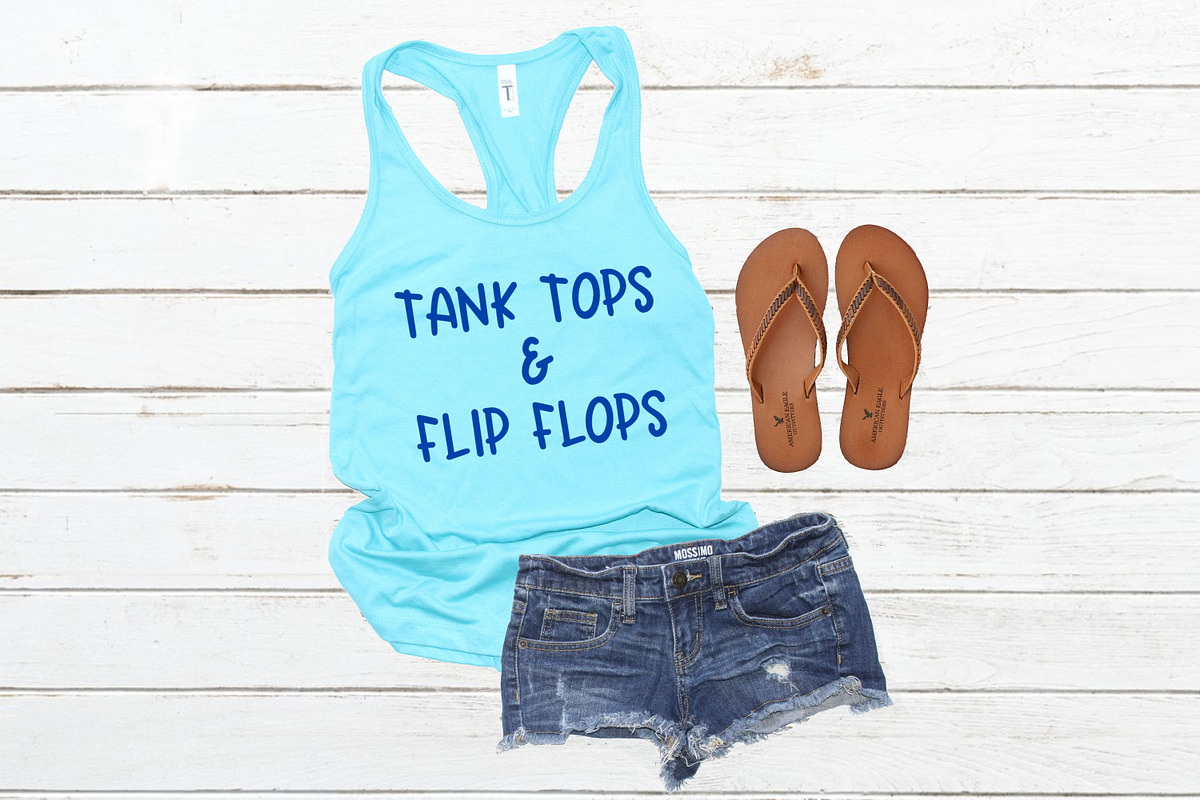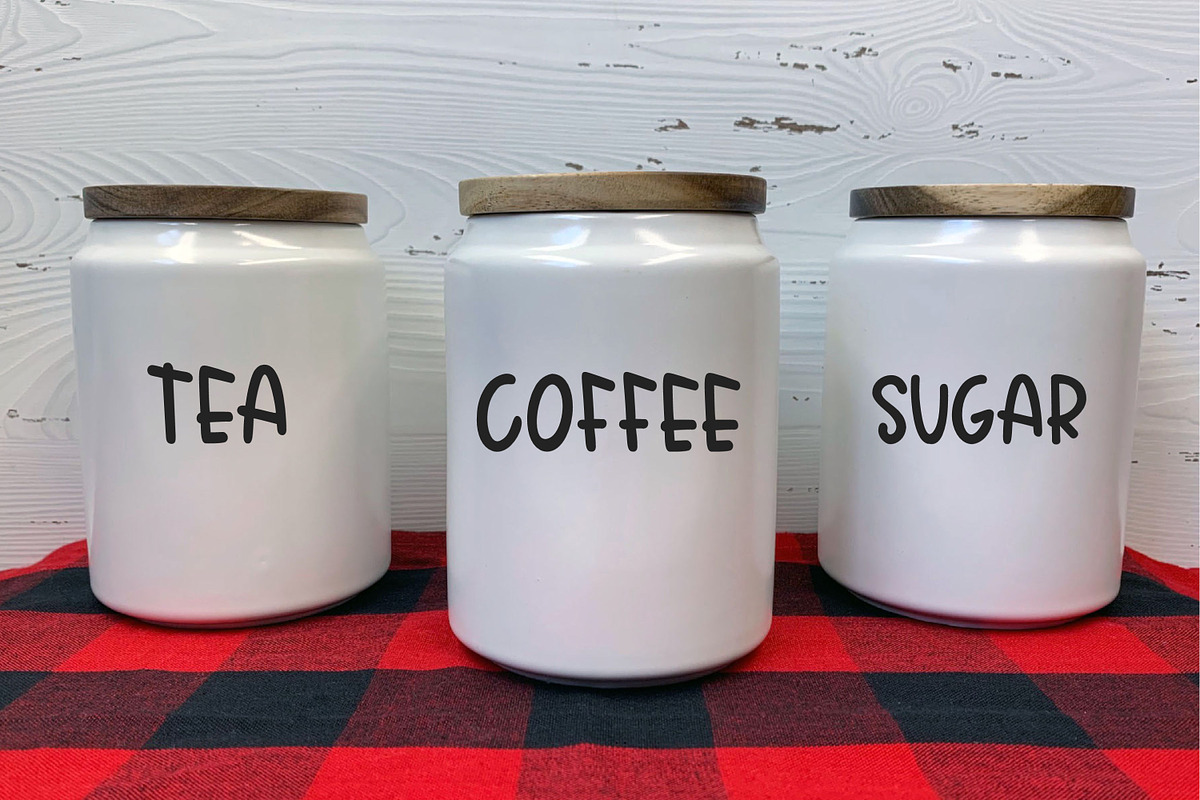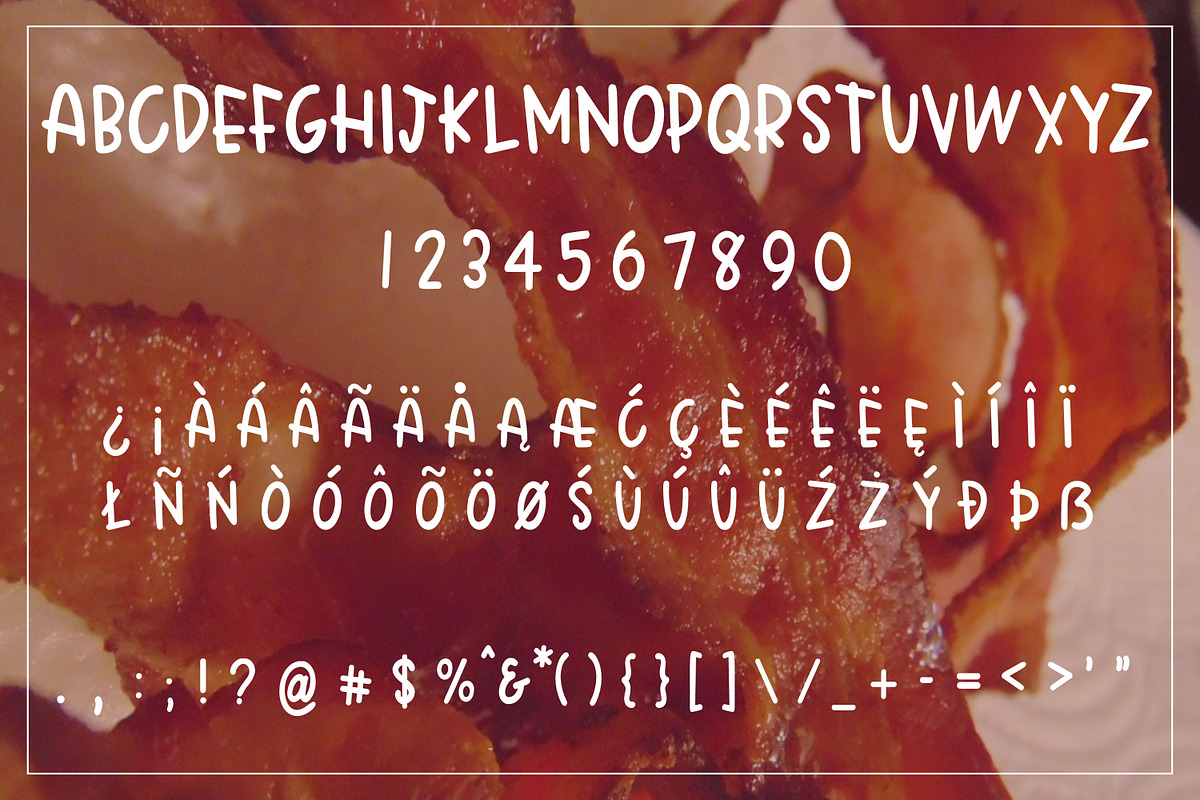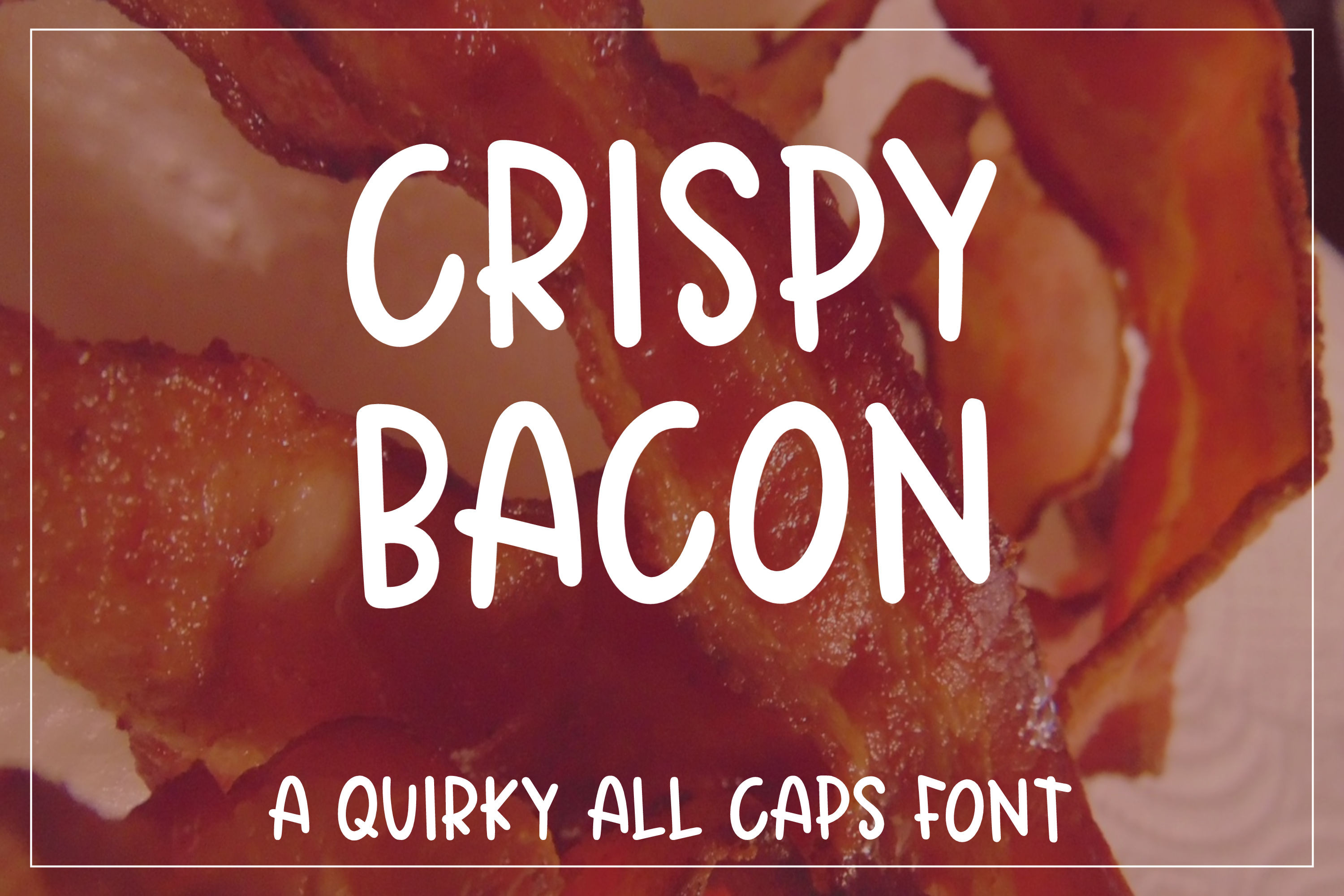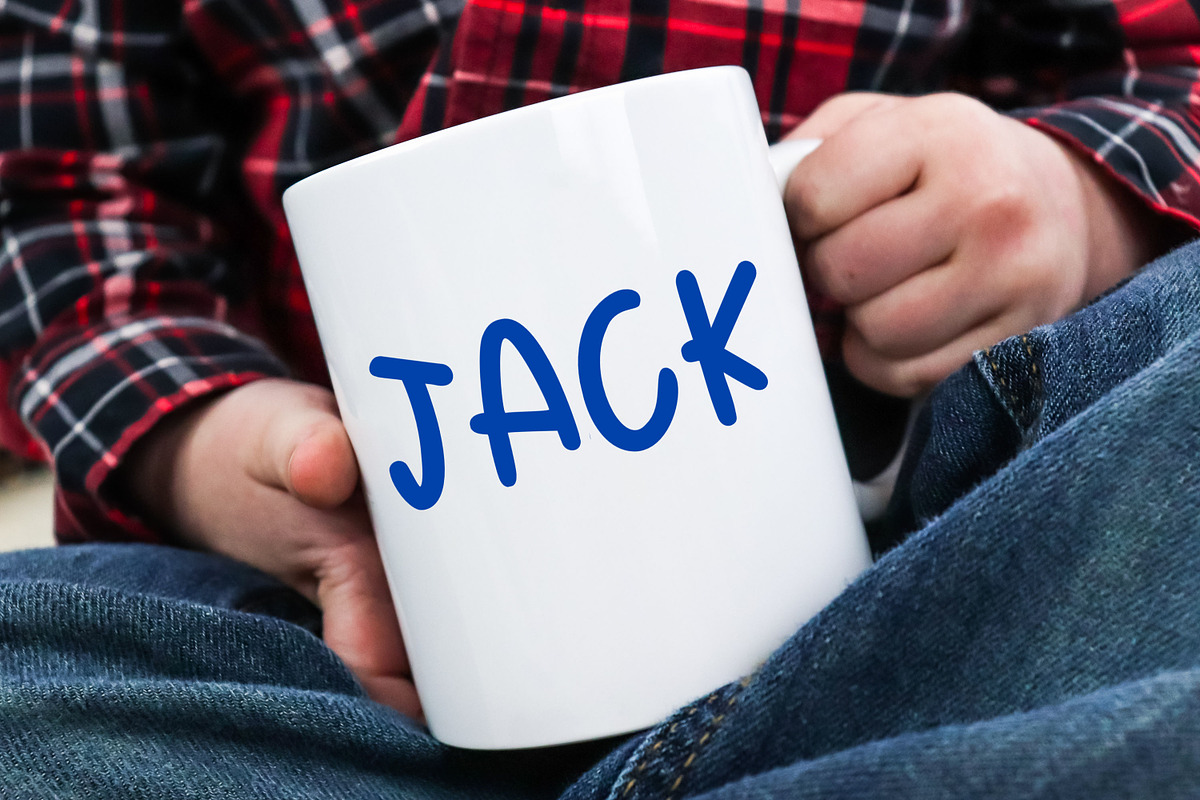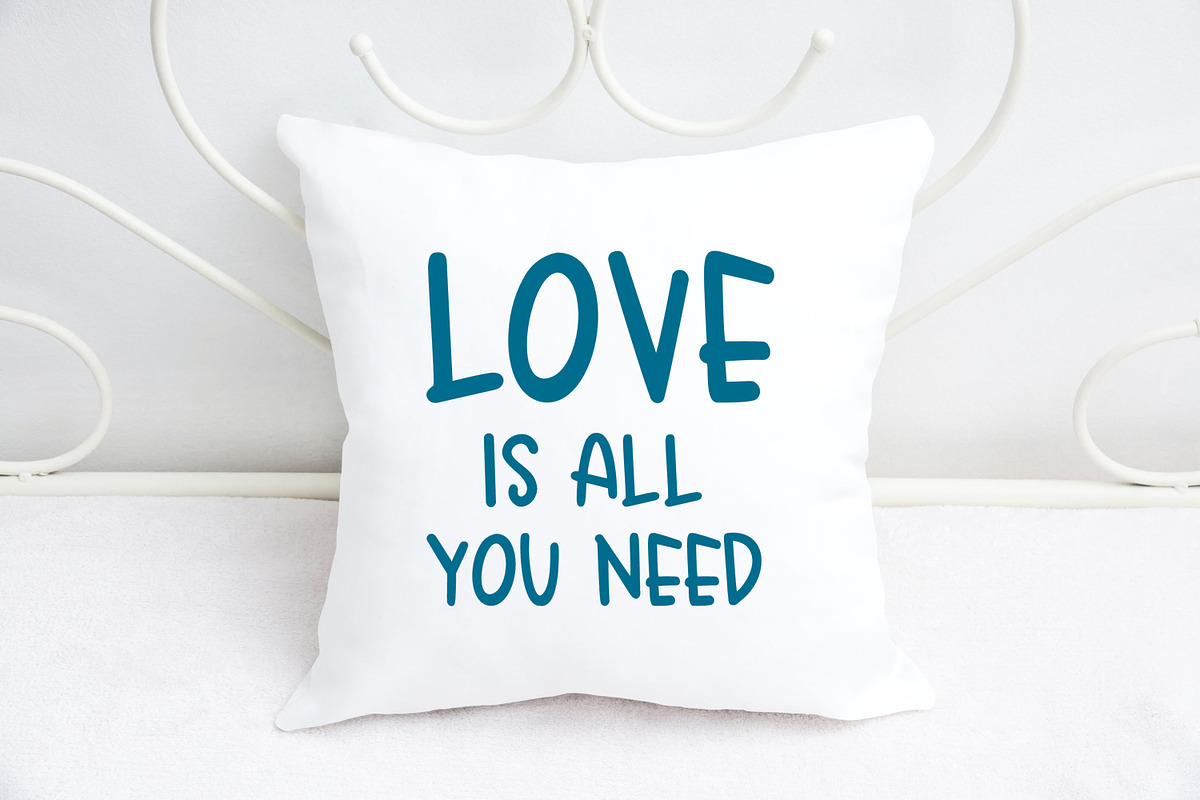
Crispy Bacon - Quirky all caps font
Crispy Bacon is a quirky all caps font made up of capital letters A-Z, numbers 0-9, accented characters and punctuation. Lowercase and capital letter keys are the same.